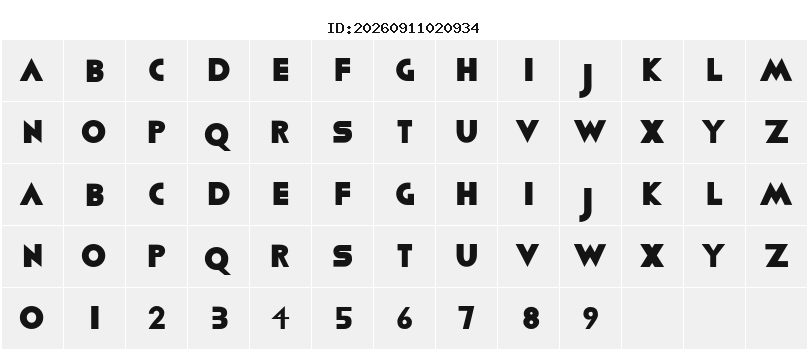
Viafont Preview
• Font Name: Viafont
• Full Font Name: Viafont
About Viafont.otf
Viafont.otf is a modern, elegant sans-serif font designed for ultimate readability and visual harmony. Perfect for branding, headlines, web design, and print materials.